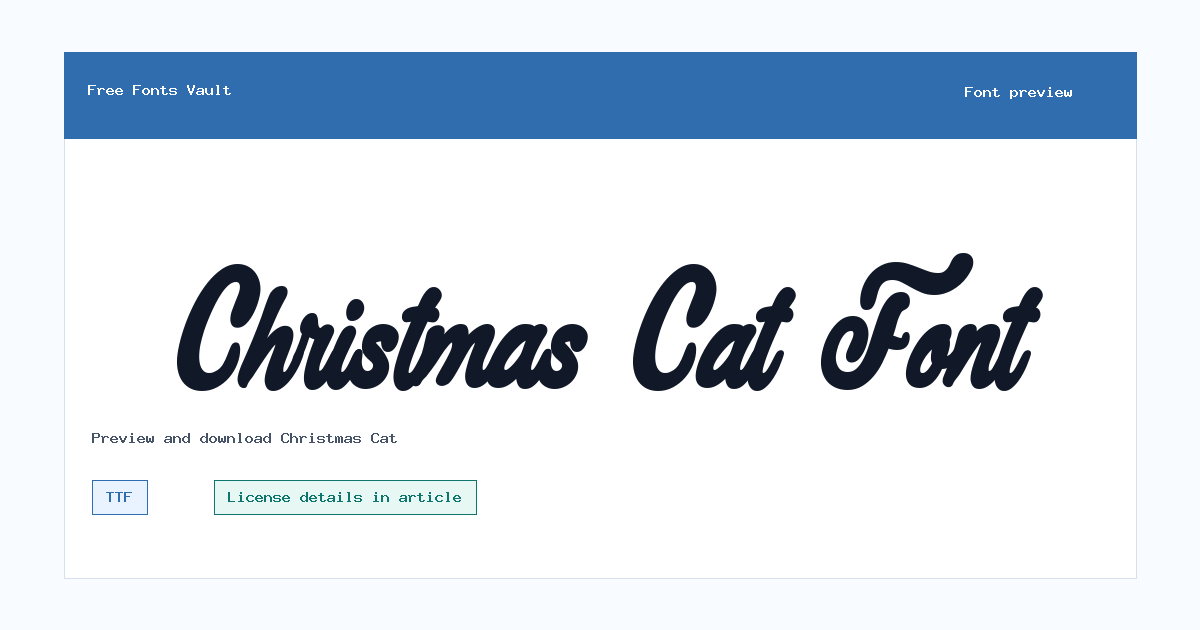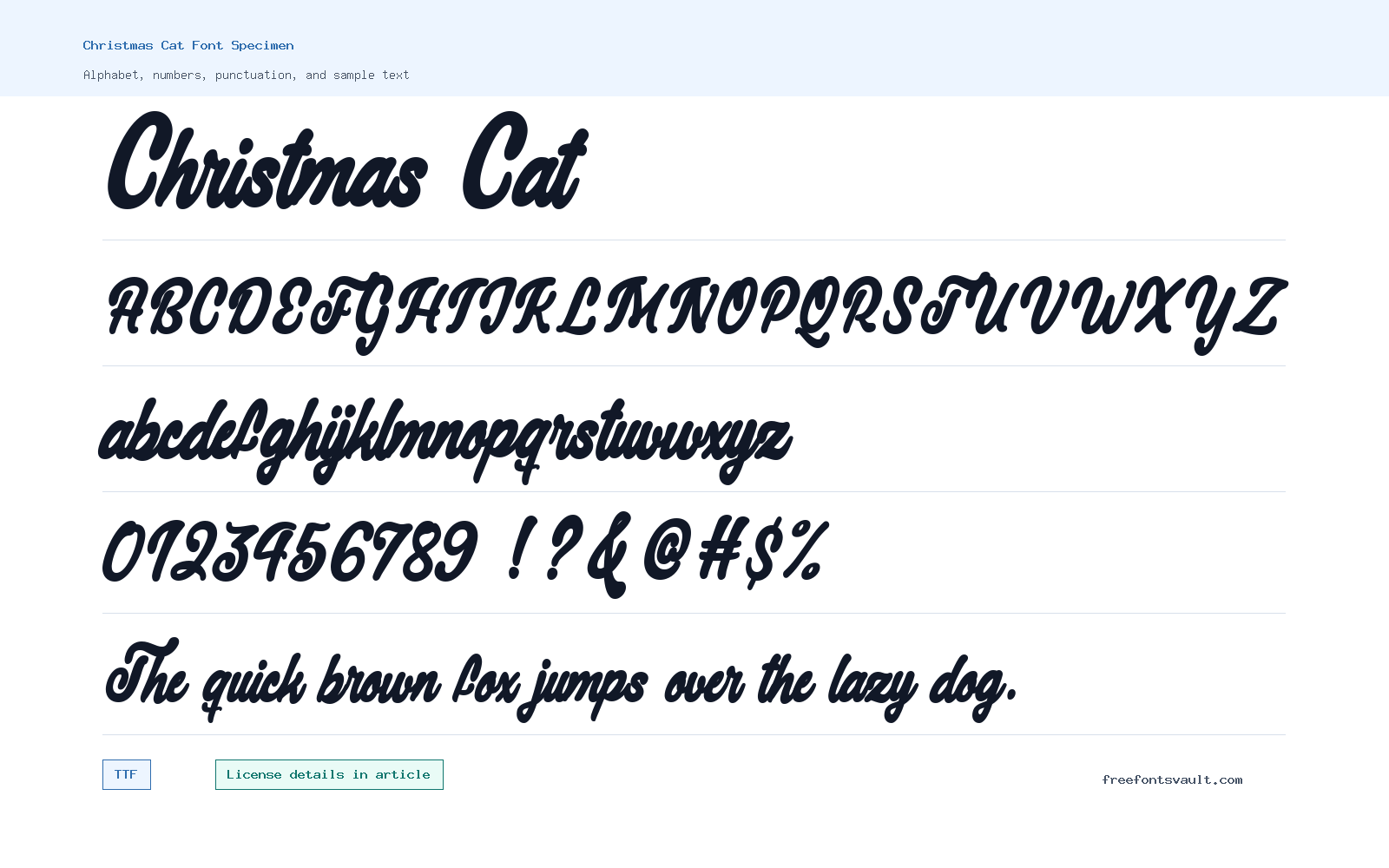
Christmas Cat
Christmas Cat is a decorative font by Misti's Fonts with a playful seasonal feel. It is best tested in short words, greetings, and display-size text where its character can stand out clearly.
About Christmas Cat Font
Christmas Cat is available as a regular TrueType font file, so it should work in most common design apps that accept TTF fonts. The name points toward holiday use, and the style is most suitable for cheerful display settings rather than long reading. Use the preview box to check how your own words look, especially names, short greetings, product labels, and social post headlines.
Because decorative fonts can change the rhythm of a line, test both uppercase and lowercase letters before downloading. Try common Christmas words, punctuation, numbers, and any special characters you need for your project. If the text feels busy, pair Christmas Cat with a plain sans serif or simple serif for supporting details. Let this font handle the title or accent line, then keep body copy clean and easy to read.
For seasonal layouts, keep the message short and let surrounding artwork carry the extra decoration. A festive font can lose charm if it is used for every detail, so reserve it for the greeting, name, or main headline.
- Playful decorative style suited to short seasonal display text
- Christmas cards, gift tags, party invitations, and holiday headers
- Short social graphics, labels, stickers, and playful seasonal name designs
Use Christmas Cat at larger sizes and for short text. For a cleaner layout, pair it with a simple supporting font and leave enough spacing around the decorative lettering. Try the preview with the exact holiday phrase and final background color before exporting artwork for print or social media.
What kind of font is Christmas Cat?
Christmas Cat is a decorative display font. It is a better fit for short festive text than for paragraphs or small body copy.
Test the exact words you plan to use, plus numbers, punctuation, and any accented characters you need. Decorative fonts can look very different depending on the text.
What fonts pair well with Christmas Cat?
Pair it with a plain sans serif or simple serif. Let Christmas Cat carry the main title while the supporting font handles dates, details, and longer text.